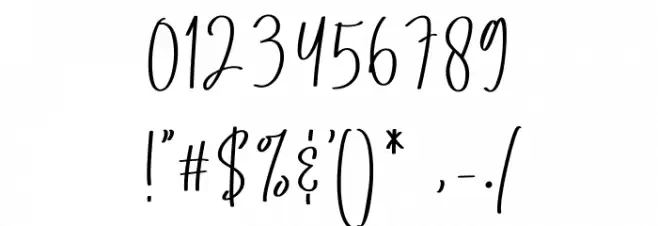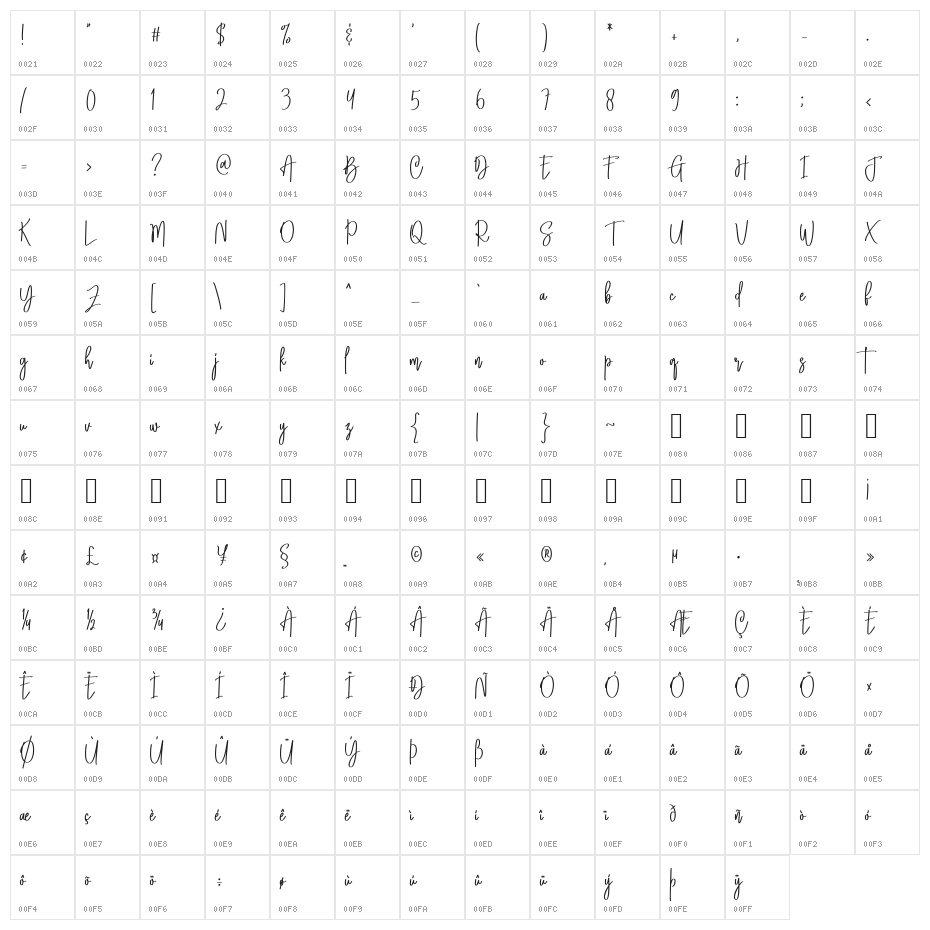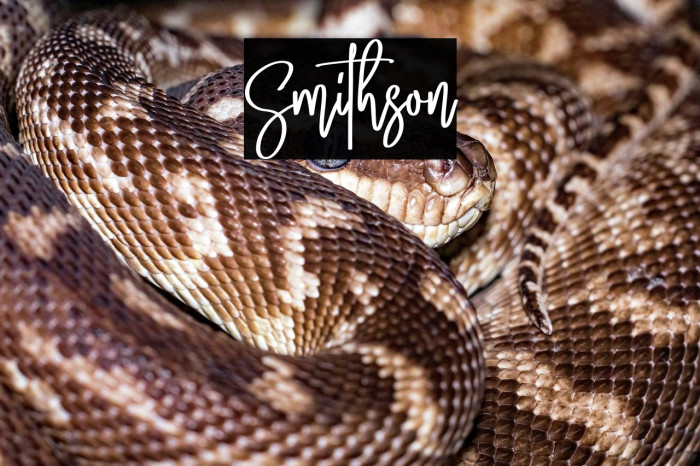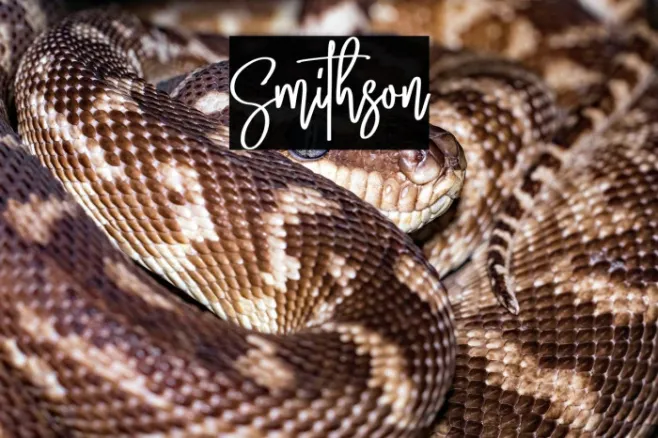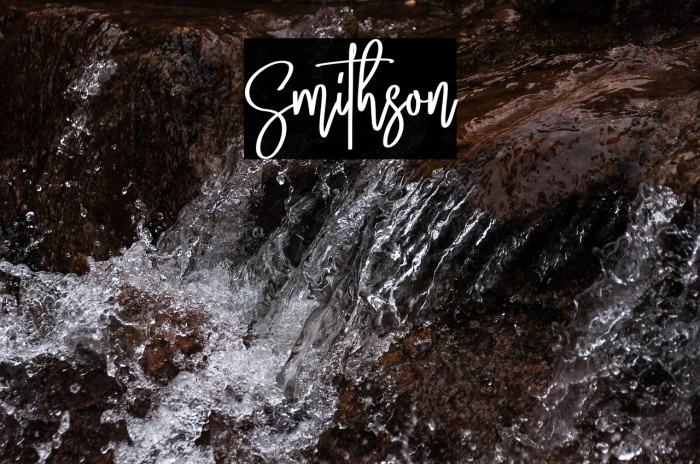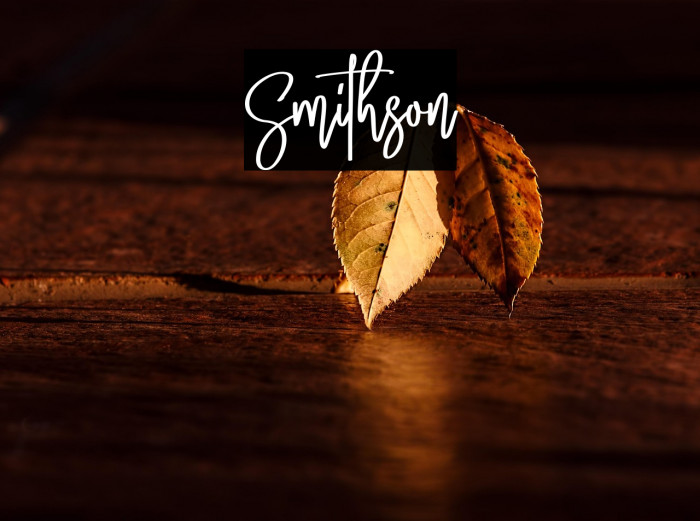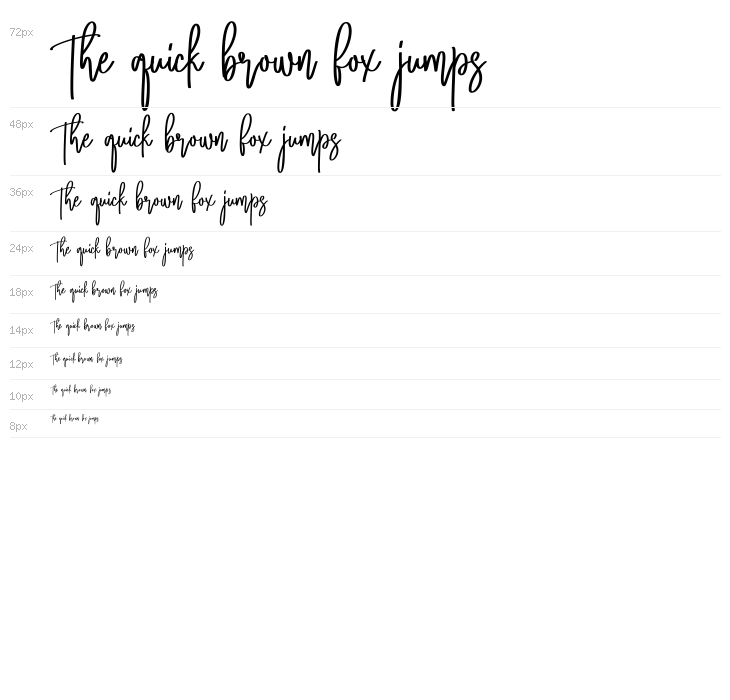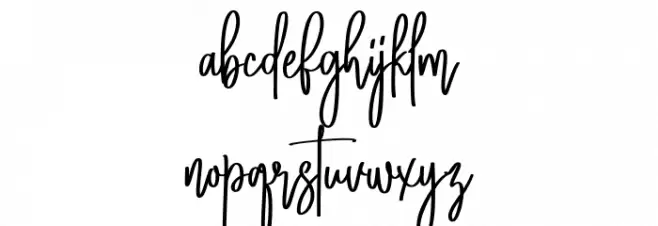
Smithson Font
Smithson Description
This font features a lively and flowing handwritten style, characterized by its elegant and elongated letterforms. The uppercase letters are tall and slightly narrow, with a playful yet sophisticated flair, while the lowercase letters maintain a consistent fluidity that enhances readability. The numerals are distinct and maintain the same whimsical quality, making them suitable for various creative applications. Special characters are thoughtfully designed to match the overall aesthetic, adding versatility to the font's use. The strokes vary in thickness, providing a medium contrast that adds depth without compromising clarity.